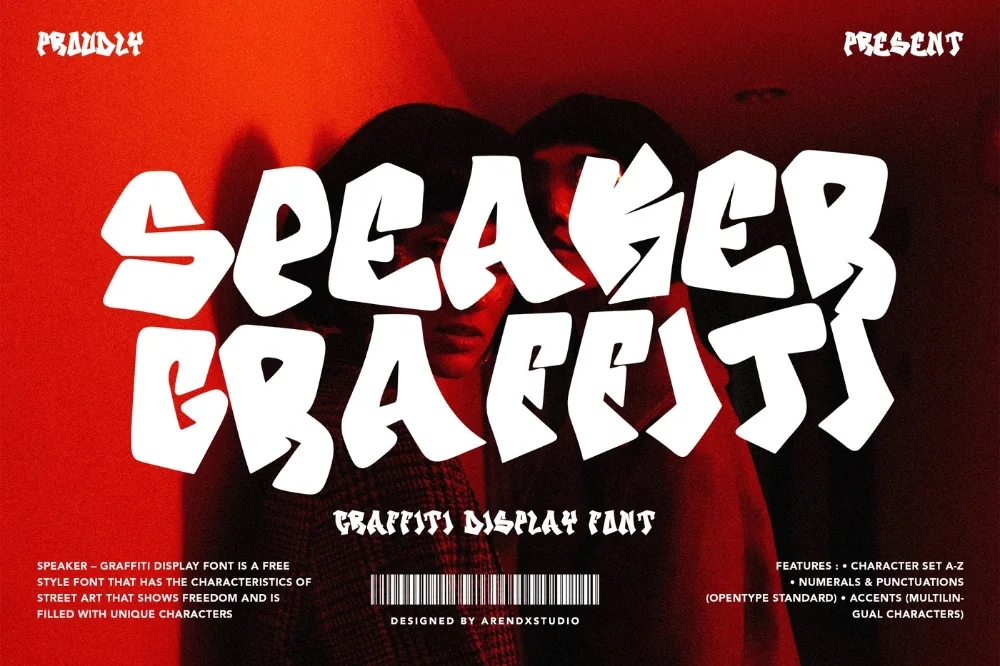
Sound System Street Font
Artwork by Speaker 70, the original creator of this set.
Among the hip hop font options in this library, this alphabet is the one worth trying first. Speaker-stack proportions with heavy, resonant letterforms. Built around music from the first stroke.
The characters are wide and squared with horizontal cut lines running through the stems, echoing speaker grilles. Set solid and tight, a headline reads like a stack of cabinets.
Perfect for sound system flyers, reggae and hip hop event art, DJ branding, and vinyl sleeve design.